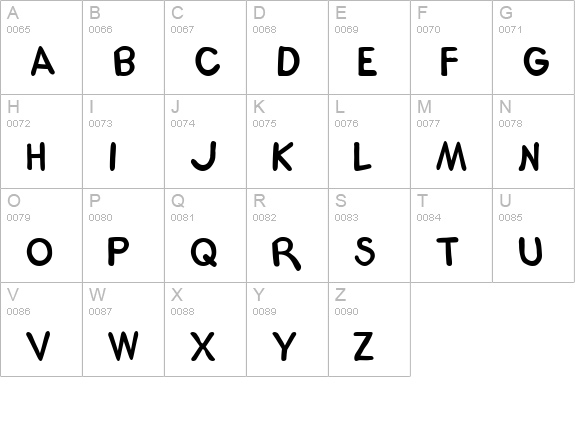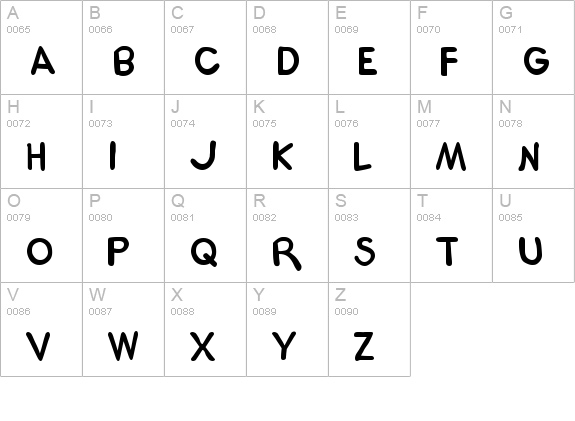
Medrano Font Details
Medrano font is a modern and stylish typeface that exudes elegance and sophistication. With its sleek lines and unique letterforms, Medrano is perfect for a wide range of design projects, from branding to packaging and beyond. This versatile font is sure to make your text stand out and leave a lasting impression on your audience. What's even better is that Medrano font is completely free to download at FontsMarket.com. That's right, you can access this stunning font at no cost and use it to elevate your designs with ease. Don't miss out on this opportunity to enhance your projects with the beauty and versatility of Medrano font. Download it today and let your creativity shine!